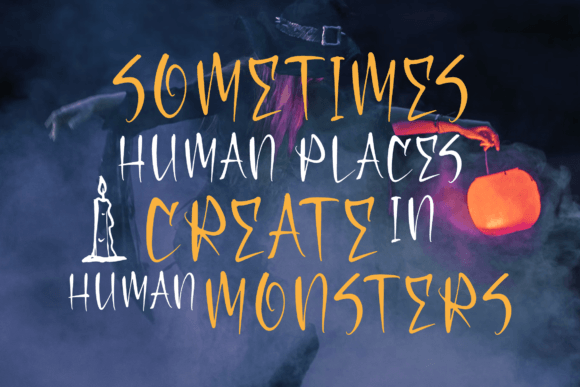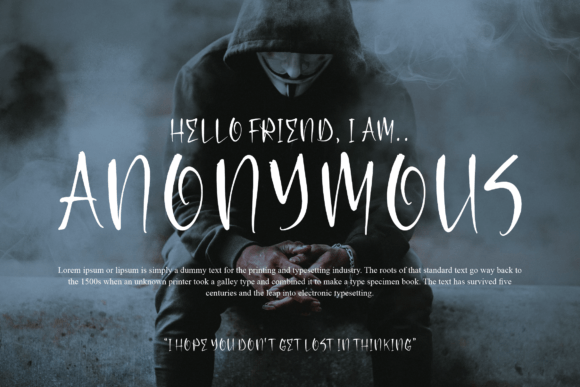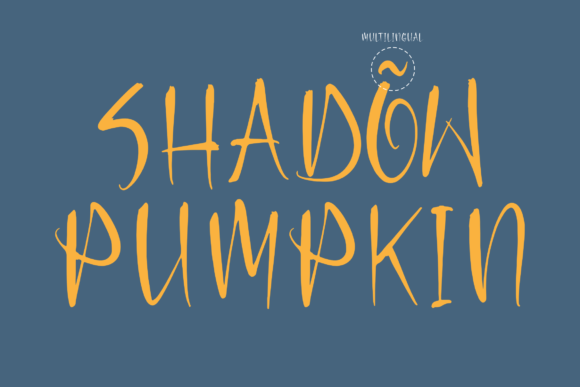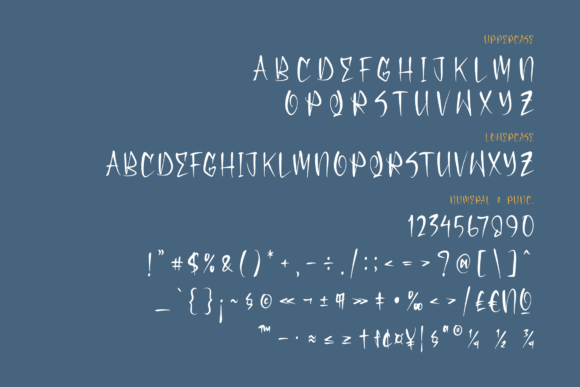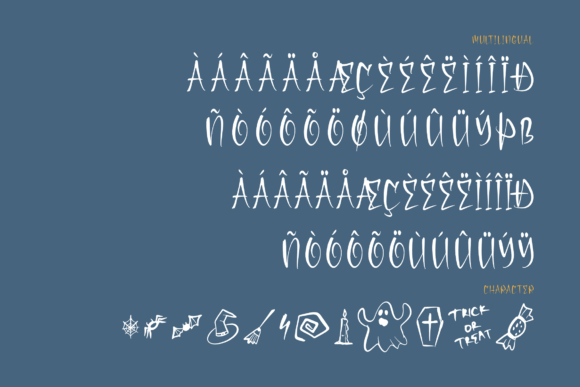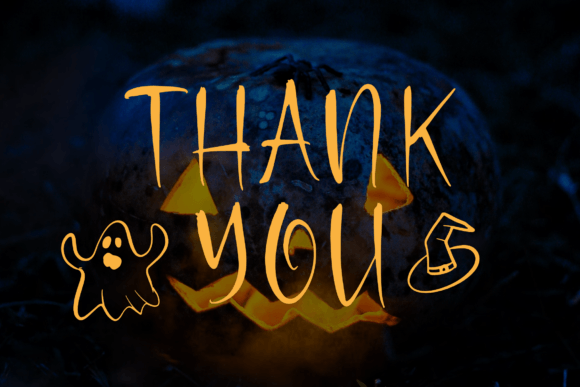
About Shadow Pumpkin Font
Shadow Pumpkin – Halloween Font suitable for any projects such as logos, branding projects, homeware designs, product packaging, mugs, quotes, posters, shopping bags, t-shirts, book covers, name cards, invitation cards, greeting cards, labels, photography, watermark, special events, and all your other lovely projects that need a beautiful script taste.